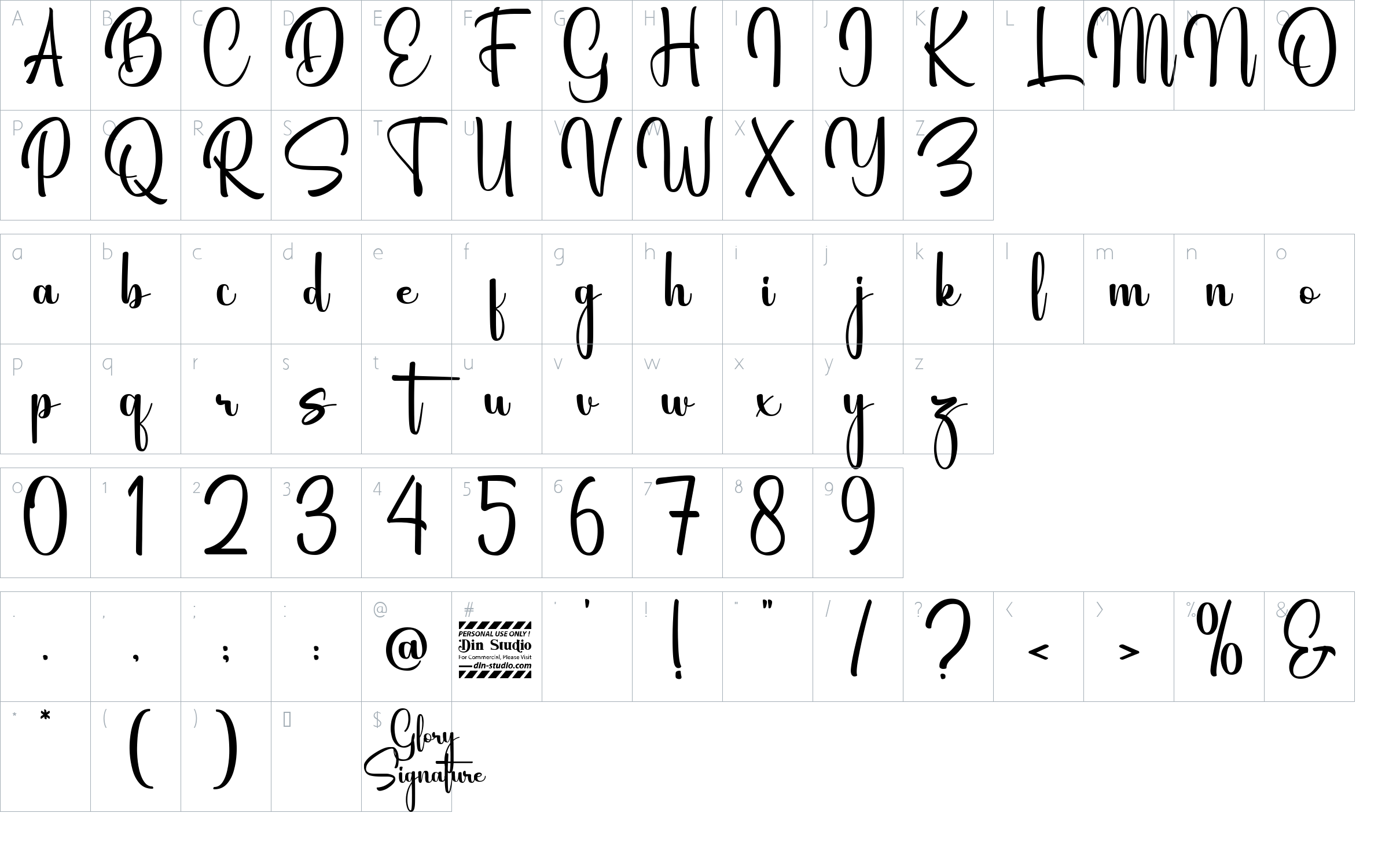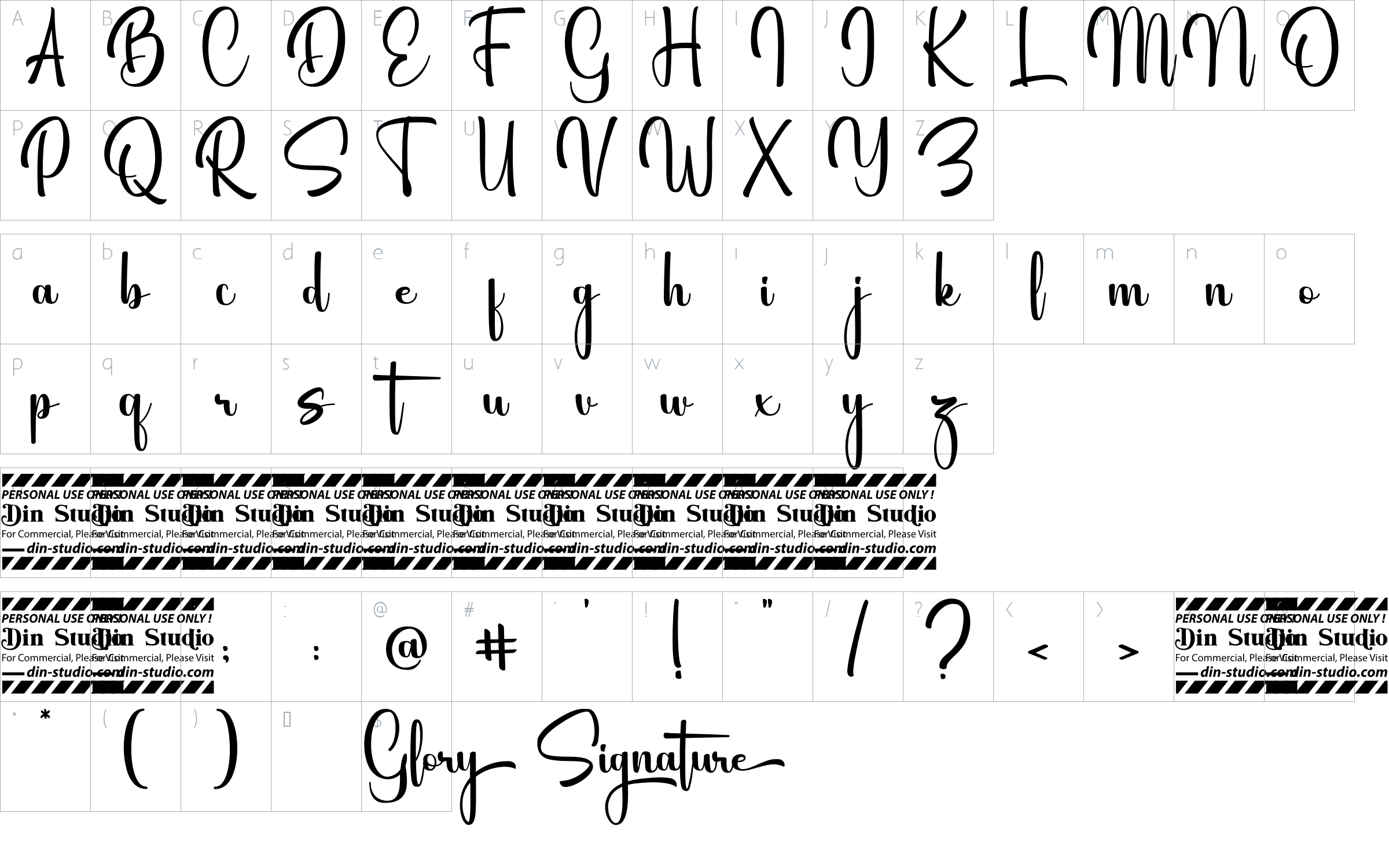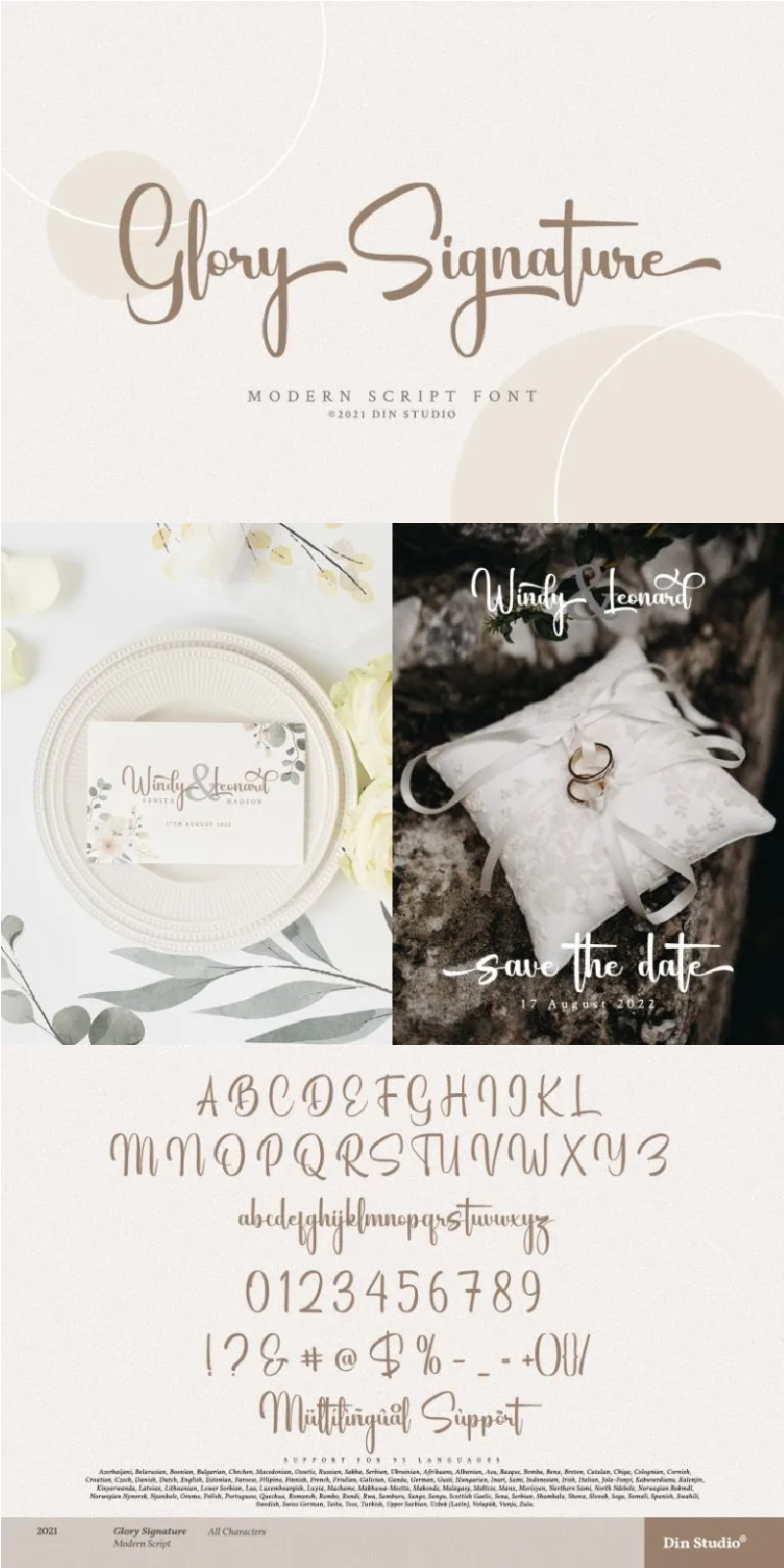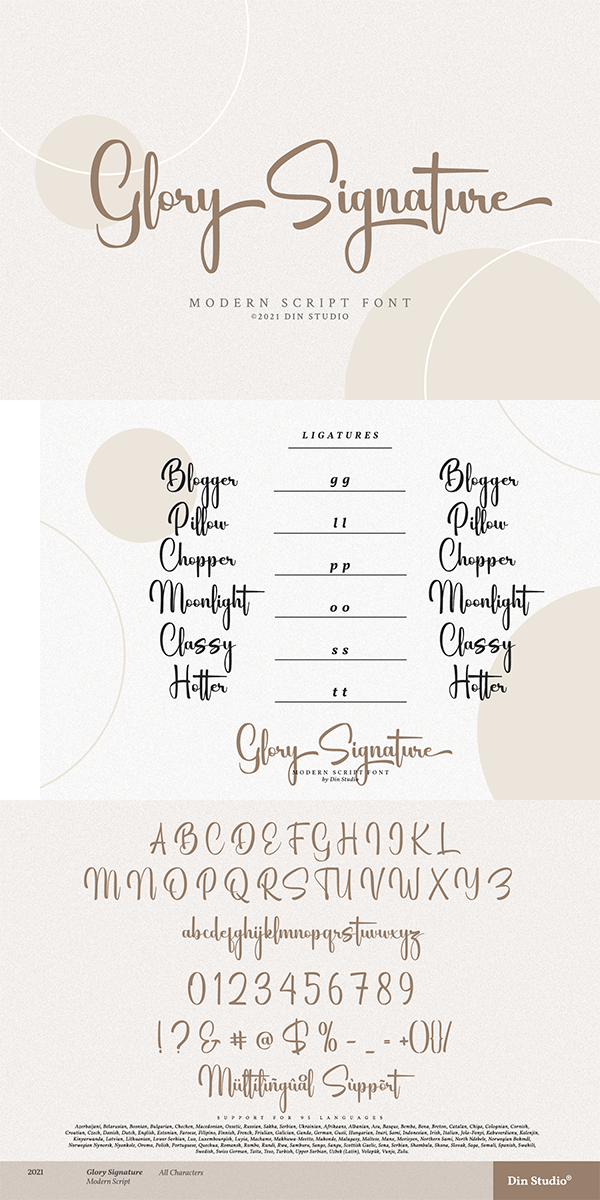
Glory Signature Font
About Glory Signature
Glory Signature – A Modern Script Font.
Giving you a simple, yet gorgeous solution to your branding. This font is more than just another script font. It encapsulates the essence of elegance and modernity. With its clean script-type design and curved indentations, this font will take your projects to the next level! Use it for headings, logos, business cards, printed quotes, invitations of all sorts, cards, packaging, and your website or social media branding.
Glory Signature includes Multilingual Options to make your branding globally acceptable. See the previews above to get some inspiration on how you can use them.
-Standard Ligatures